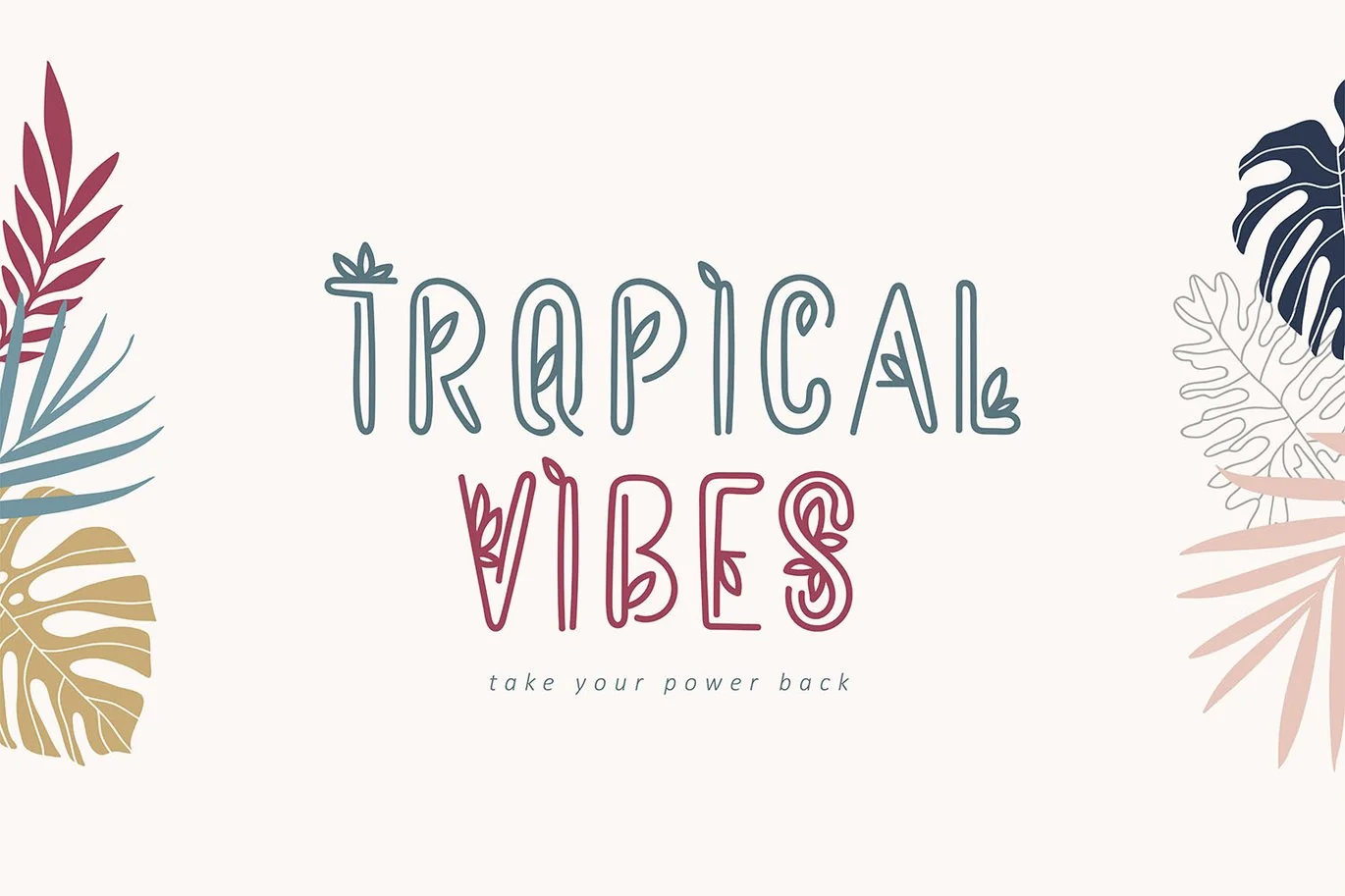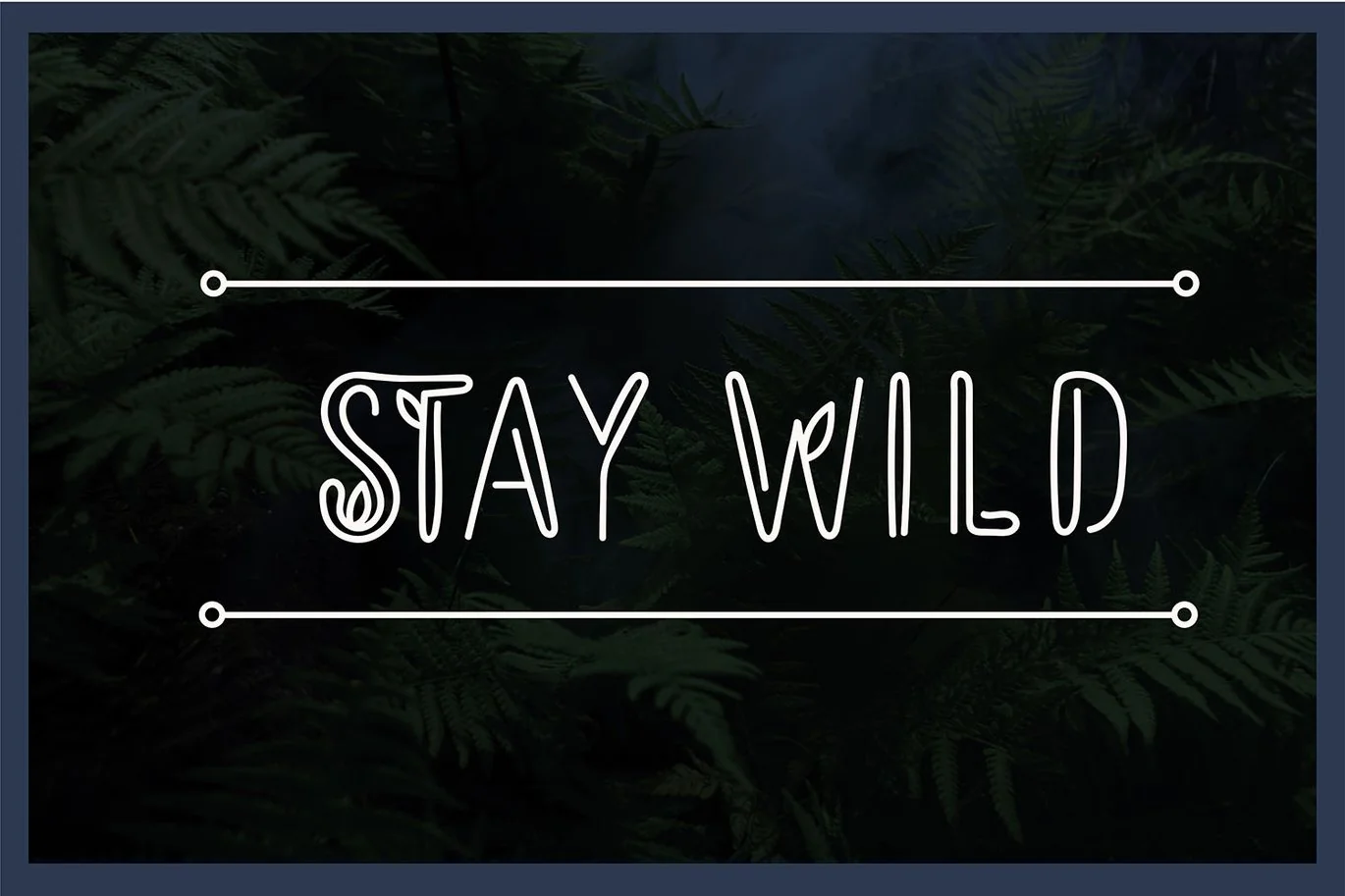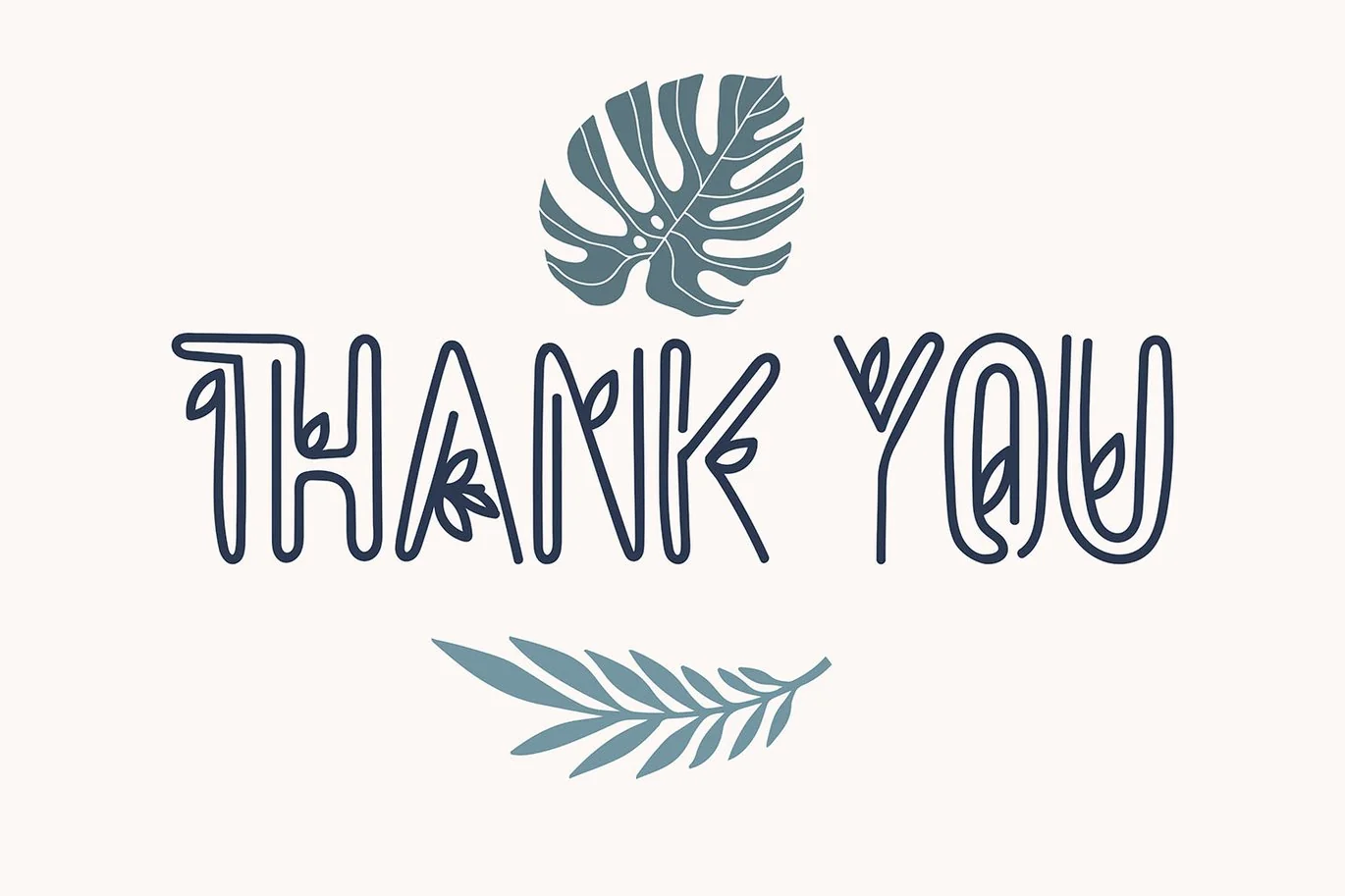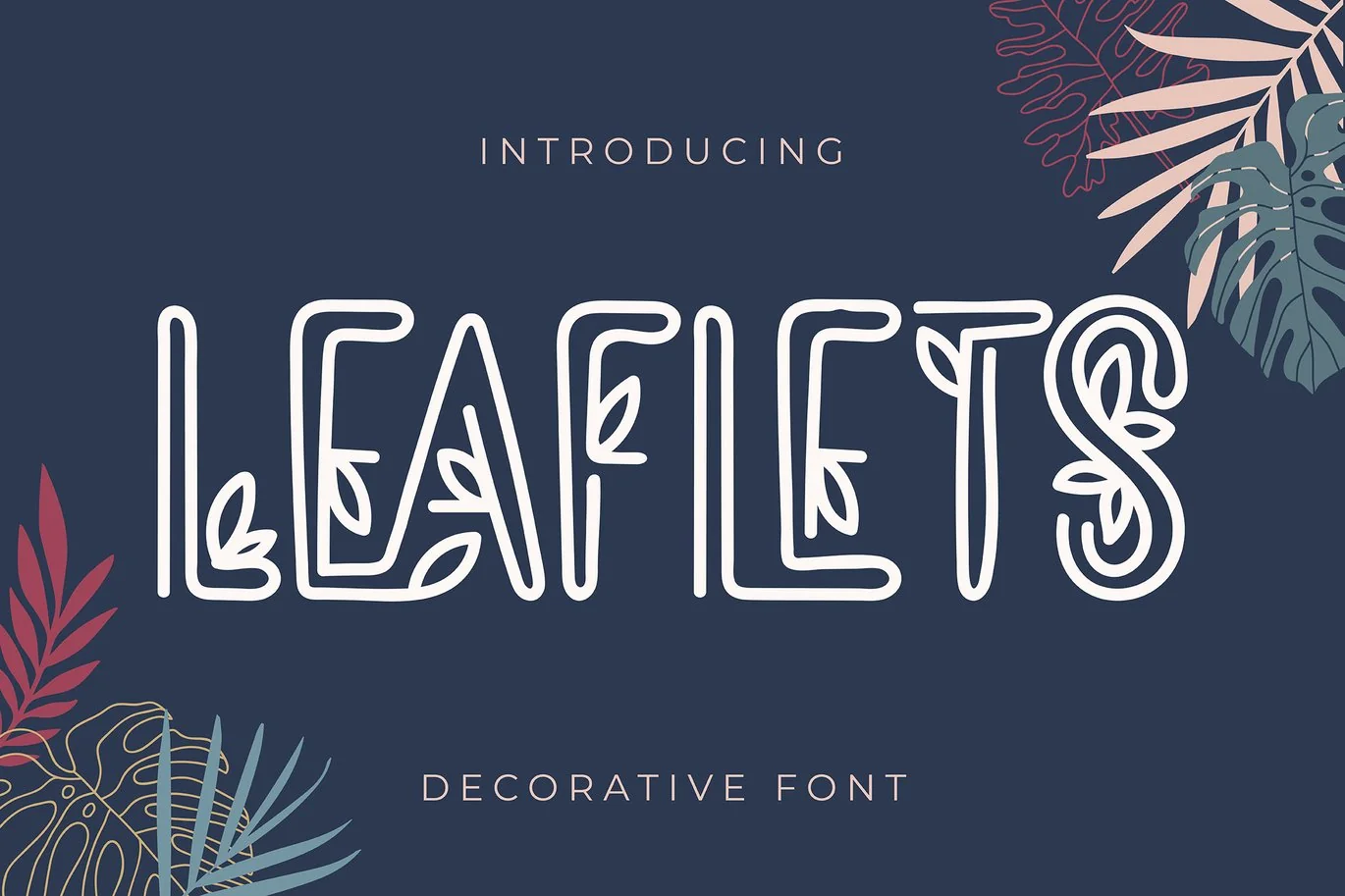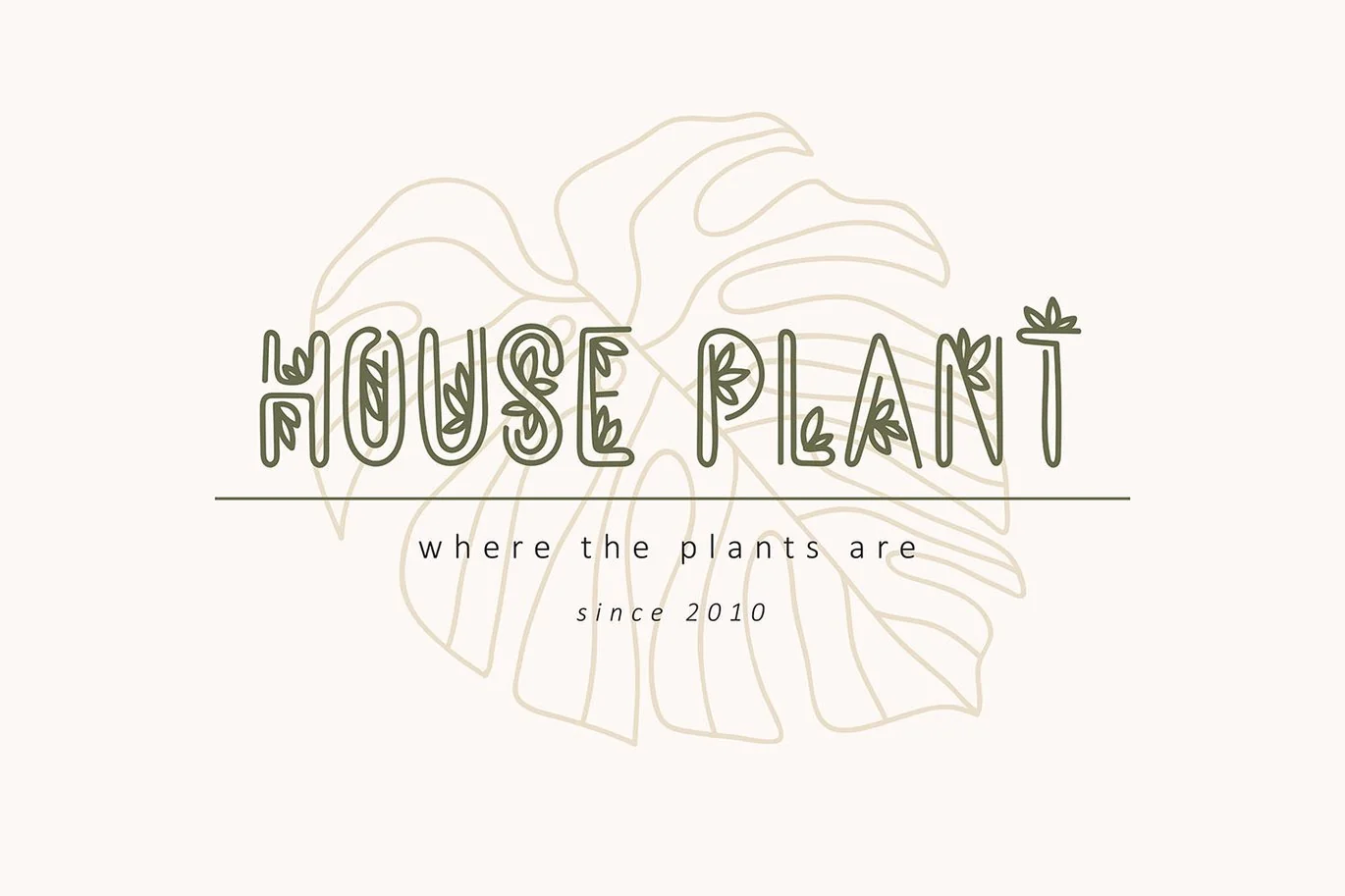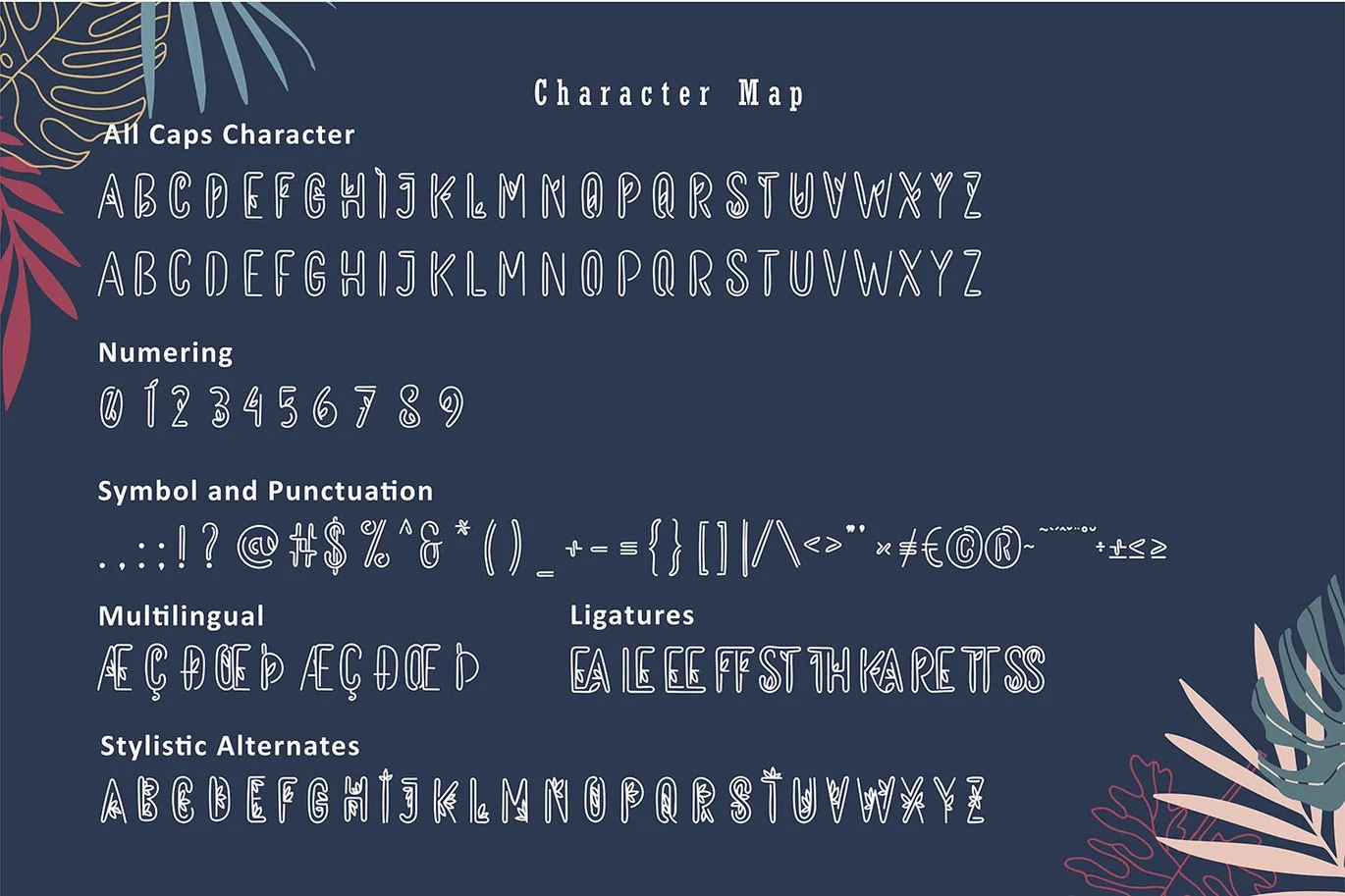
Leaflets | Decorative Font
**Leaflets | Decorative Font ** with a calligraphy style, So beautiful on invitation like greeting cards, branding materials, business cards, quotes, posters, and more!